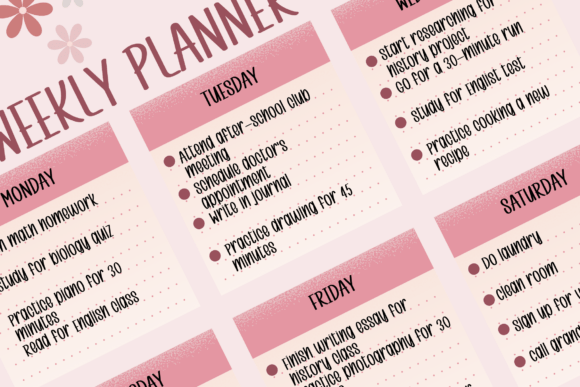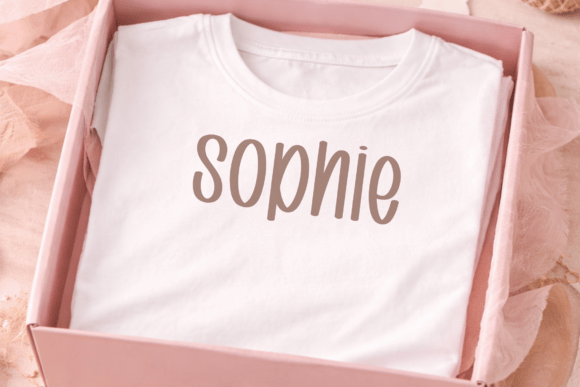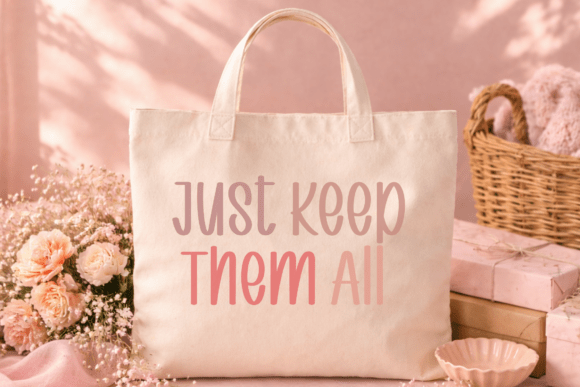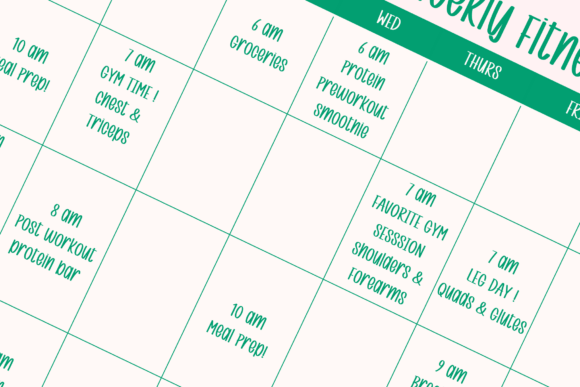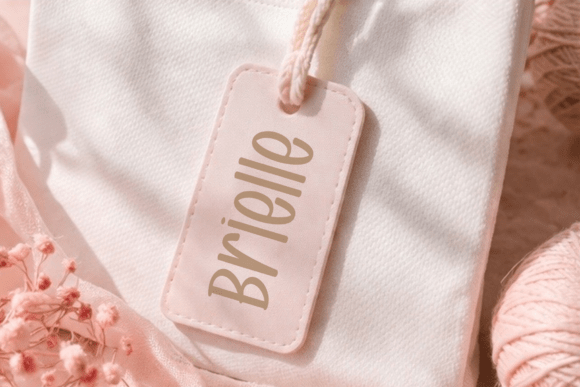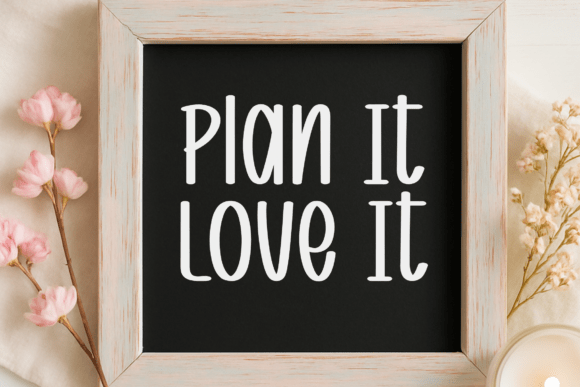
Introduction to Daisy Calm Font
Daisy Calm is a soft and elegant handwritten brush font designed to bring a gentle and aesthetic touch to your creations.
With its smooth curves and relaxed letterforms, this font creates a calm and cozy feeling that is perfect for modern feminine designs Inspired by natural beauty and soft floral vibes, Daisy Calm works beautifully for digital planners, journaling, branding, and social media content.